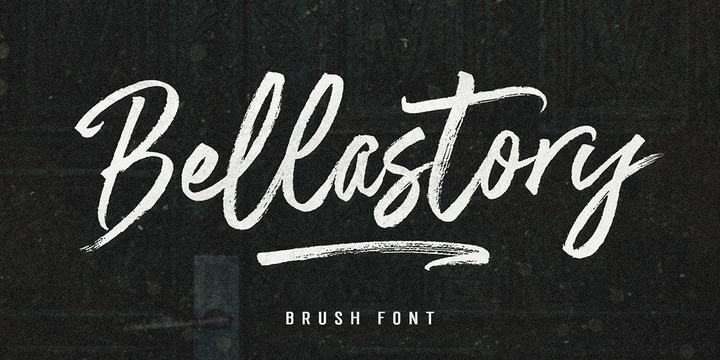
Bellastory Font
Bellastory Font is perfect for storytelling brands, book covers, fairy tale illustrations, children's literature, creative writing projects, narrative design, magazine stories, blog headers, romantic novels, and whimsical branding projects.
Bellastory Font is exciting because it captures the magical essence of storytelling with its enchanting letterforms and narrative personality that transforms ordinary text into captivating visual stories. Its distinctive character design evokes wonder and imagination, making it perfect for brands and projects that want to create memorable experiences through the power of storytelling and emotional connection.
The Bellastory Font family includes Regular weight, Bold variation, Light style, Italic versions, Decorative capitals, Swash alternates, Ornamental details, and Storybook elements, providing designers with comprehensive creative tools for building engaging narrative typography and enchanting brand experiences.
Whether you're publishing children's books, developing creative brand identities, designing literary magazines, or creating content for storytelling platforms, Bellastory Font provides the perfect foundation for narrative-driven design experiences. Its enchanting character makes it particularly effective for publishers, authors, creative agencies, and entertainment brands that value imagination and storytelling excellence.
Perfect for book designers, creative writers, children's content creators, and brand storytellers, this font offers the narrative qualities essential for memorable content experiences. The typeface's versatility shines in both digital storytelling platforms and traditional print publications, maintaining its magical appeal across all media formats.
Bellastory Font includes extensive character support, creative alternates, and thoughtful spacing that ensures beautiful results in narrative design applications. Its storytelling approach to typography makes it invaluable for brands seeking to communicate through compelling visual narratives. Bring your stories to life with Bellastory Font Free Download and discover typography that truly tells a story.